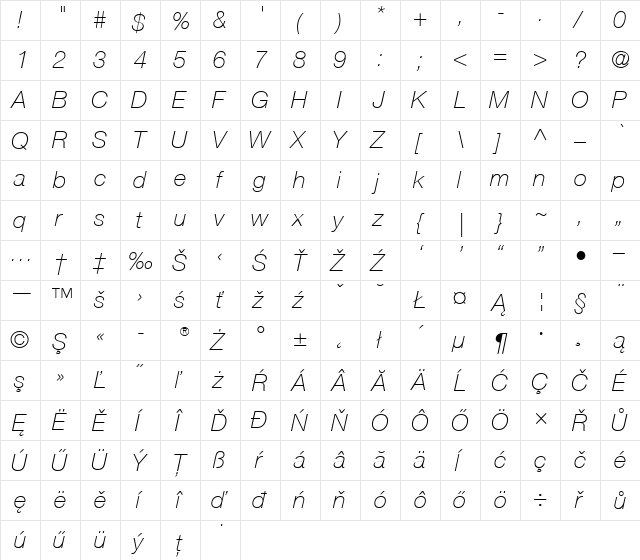
Helvetica CE 35 Thin Italic Font Preview
Design Context for Helvetica CE 35 Thin Typeface
Helvetica CE 35 Thin is a composed and adaptable typeface that performs quietly and consistently across a wide range of design contexts. The dynamic lean of this cut emphasises speed and emphasis in any layout. The delicate stroke weight brings airiness and refinement to layouts.
Pro Tip: Try Helvetica CE 35 Thin for annotation and caption copy alongside an upright companion — the contrast in angle creates a dynamic but ordered typographic system.